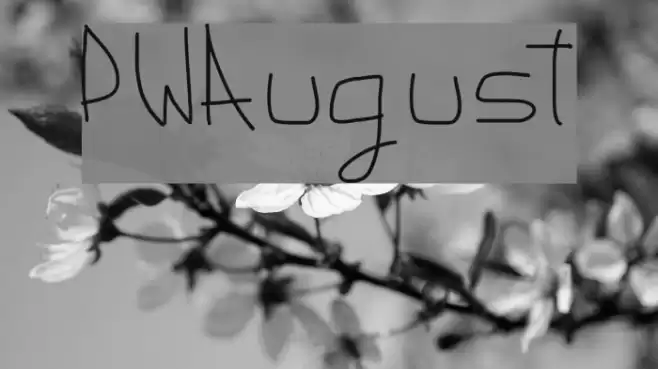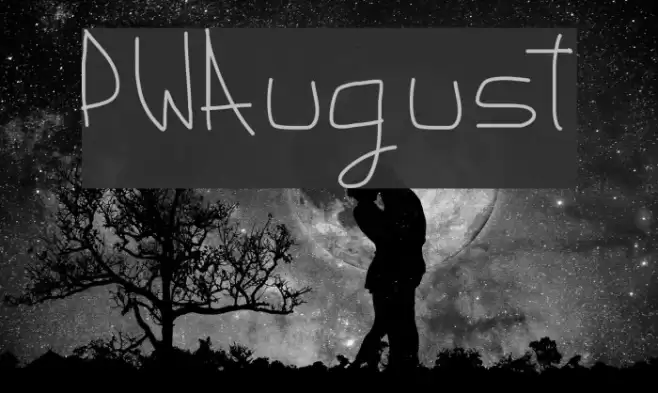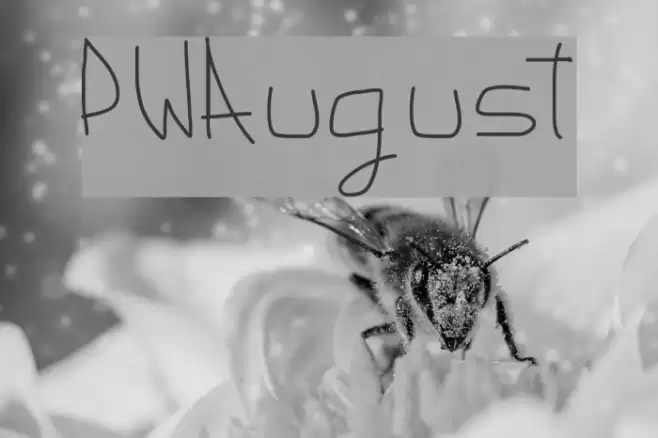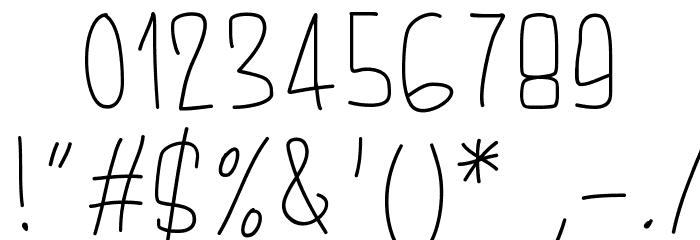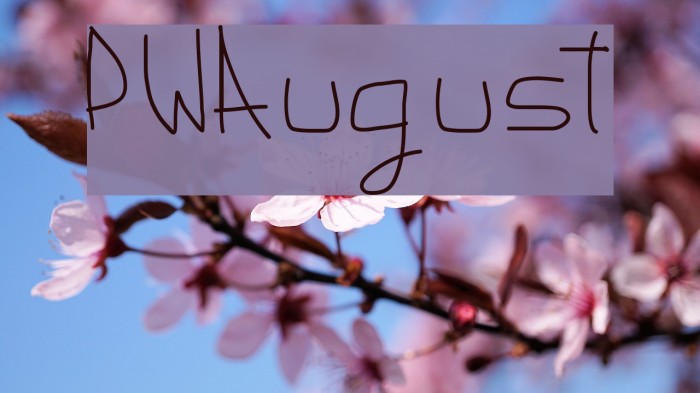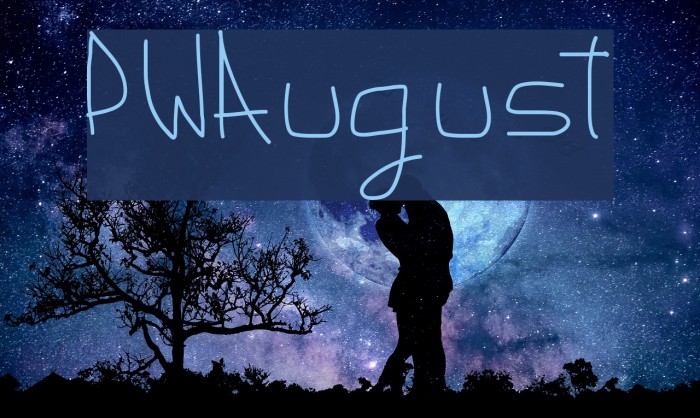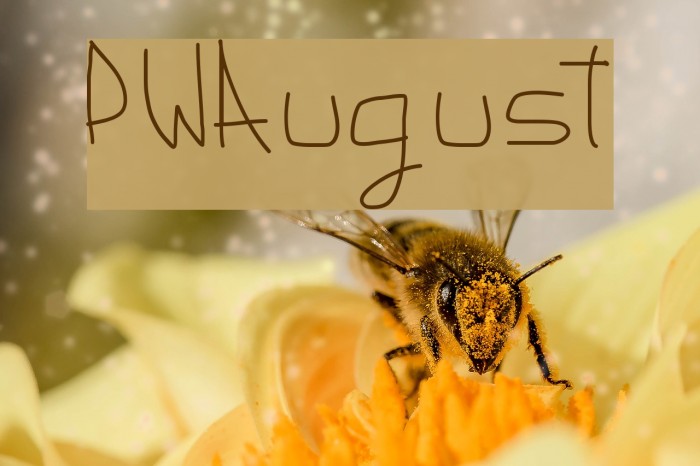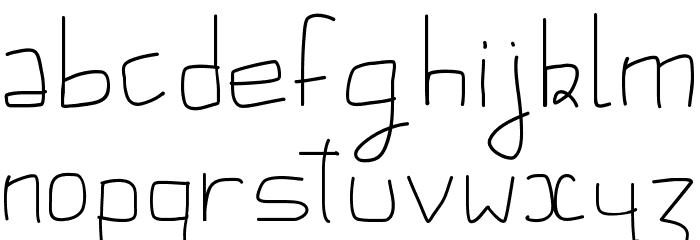
PWAugust Font
PWAugust Description
This font features a casual, handwritten style with a playful and informal appearance. The letters are slightly irregular, giving it a personal and approachable feel. The strokes are thin and consistent, with a slight slant that adds to its dynamic character. The uppercase and lowercase letters are well-balanced, maintaining readability while conveying a sense of whimsy. The numbers and special characters are crafted with the same playful touch, ensuring a cohesive look across all text elements. This font is ideal for projects that require a friendly and informal tone.
A playful, handwritten font with thin, slightly slanted strokes from Uncategorized fonts.
- Proposed Projects: Ideal for greeting cards, children's books, casual invitations, and personal blogs.
- Overall Style: Casual
- Use Case: Headlines, Informal text, Personal projects